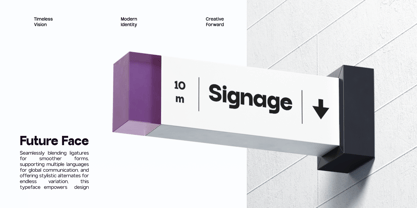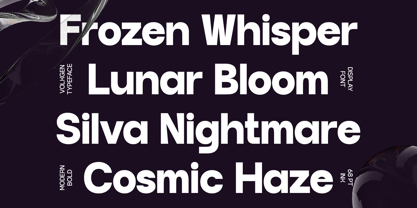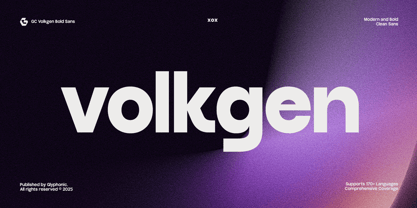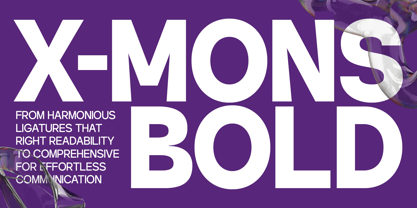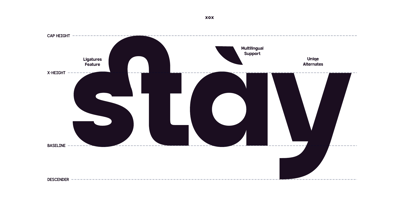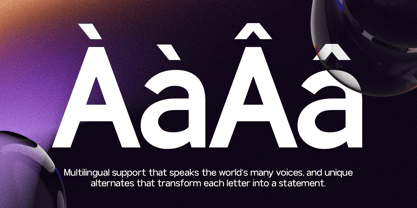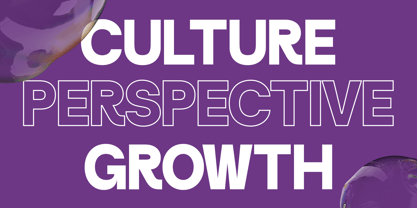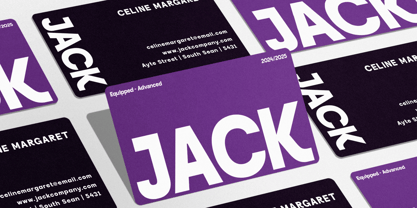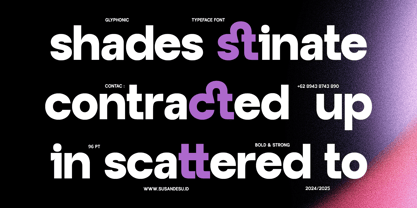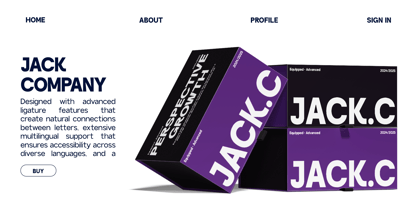
GC Volkgen
by Onyx Studio
The GC Volkgen Font Family was designed by Muhammad Hafiizh Solana and published by Onyx Studio. GC Volkgen contains 2 styles and family package options. More about this family
GC Volkgen – Where Clarity Meets Power is a modern sans serif typeface that blends sharp clarity with commanding presence. Built on clean geometric foundations and reinforced by strong strokes, it projects confidence and versatility across digital and print platforms. Striking the balance between precision and character, it’s ideal for branding, editorial design, technology-driven projects, and impactful visual identities. With balanced proportions and refined details, GC Volkgen adapts effortlessly while maintaining a distinctive voice. From bold headlines to sleek interfaces and minimalistic layouts, this font delivers strength, clarity, and modern sophistication to any typographic work. Features: Uppercase & Lowercase Numbers & Punctuation Modern Geometric Construction Multilingual Support (170+ Languages) Empower your design with the clarity, strength, and timeless modernity of GC Volkgen.
Designers: Muhammad Hafiizh Solana
Foundry: Onyx Studio